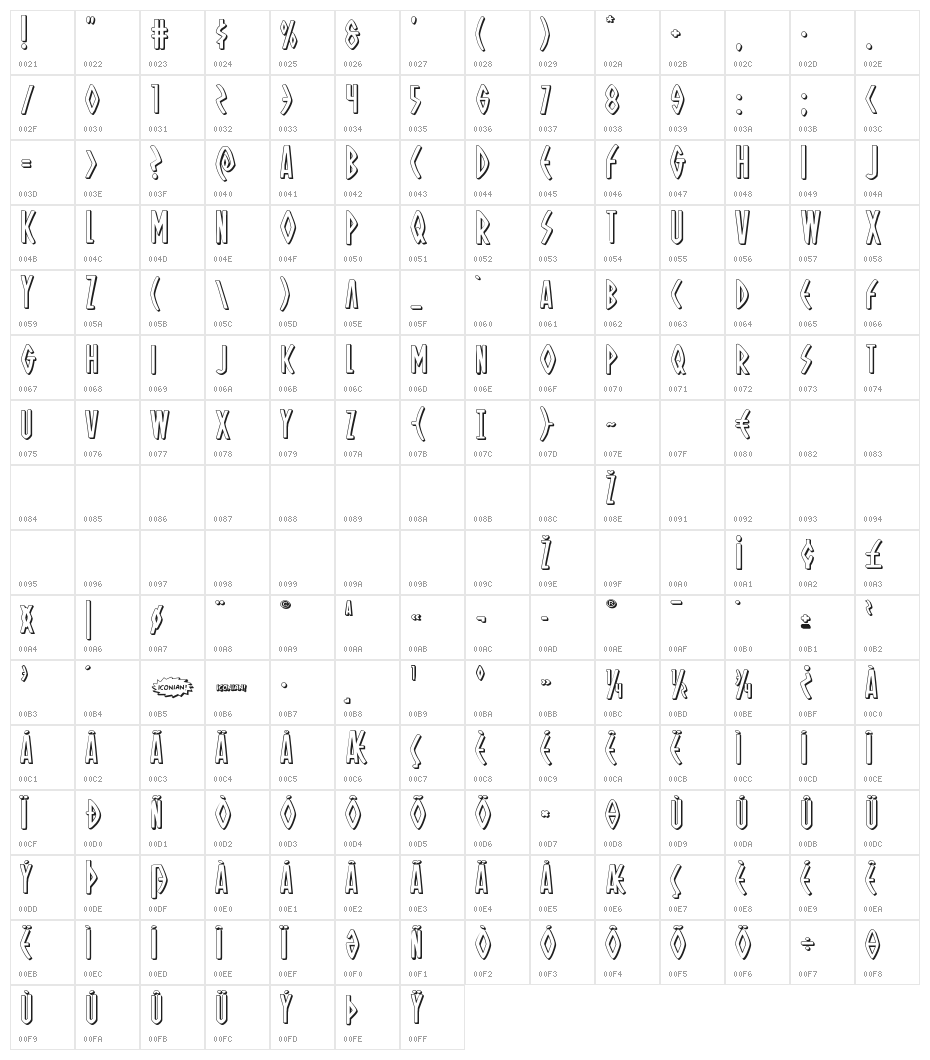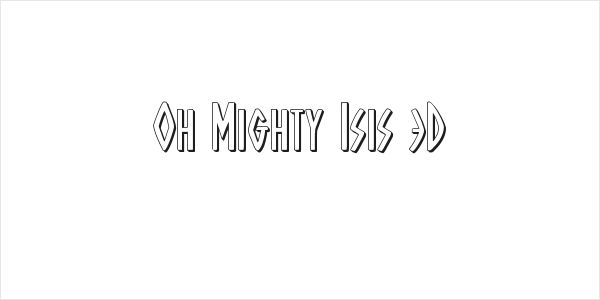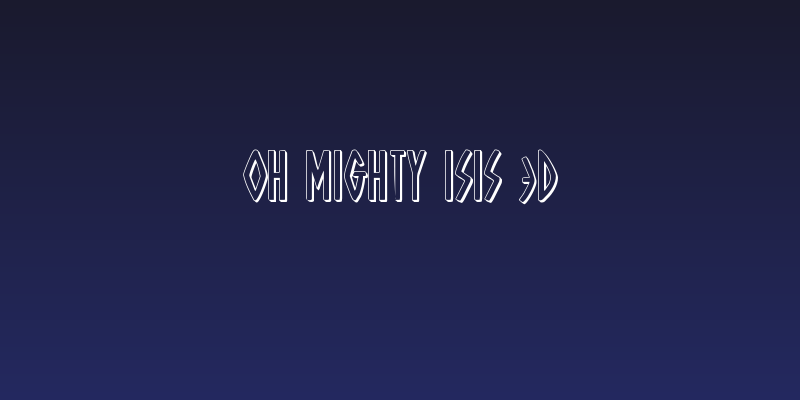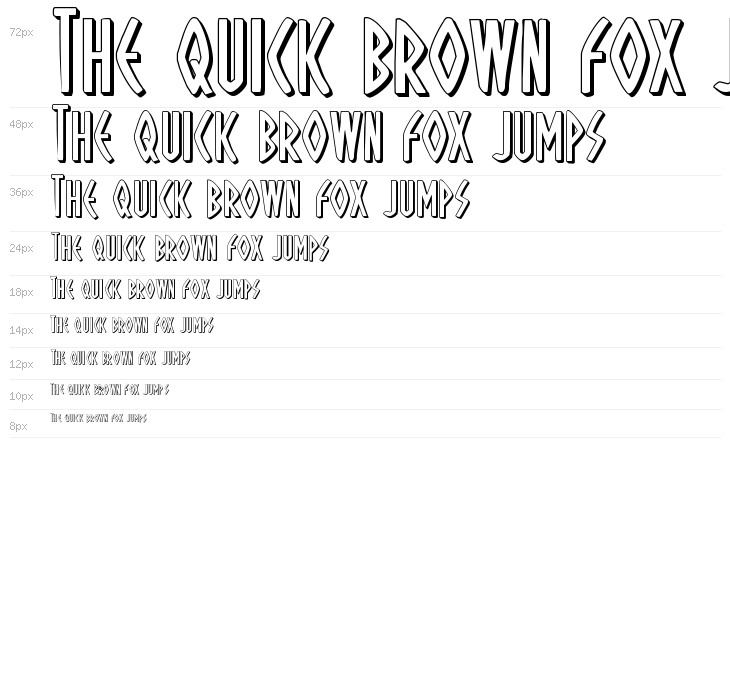
Oh Mighty Isis 3D Font
Oh Mighty Isis 3D Description
This font features a bold, three-dimensional style with a strong, geometric presence. The uppercase letters are tall and narrow, with sharp angles and a distinct shadow effect that gives them a 3D appearance. The numbers and special characters maintain this bold, angular style, ensuring consistency across the character set. The font's design is eye-catching and dynamic, making it suitable for projects that require a strong visual impact. The spacing between characters is relatively tight, which enhances the compact and powerful look of the text.
| Proposed Projects | Ideal for posters, headlines, logos, and any design requiring a striking, bold typeface. |